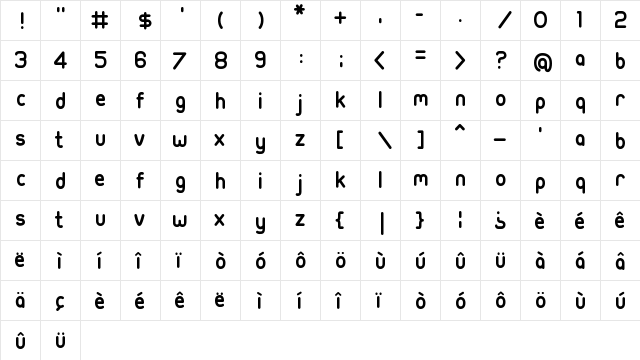
Ubuntu-Title-fr Title-fr
Design Context for Ubuntu-Title-fr Typeface
Ubuntu-Title-fr is a composed and adaptable typeface that performs quietly and consistently across a wide range of design contexts.